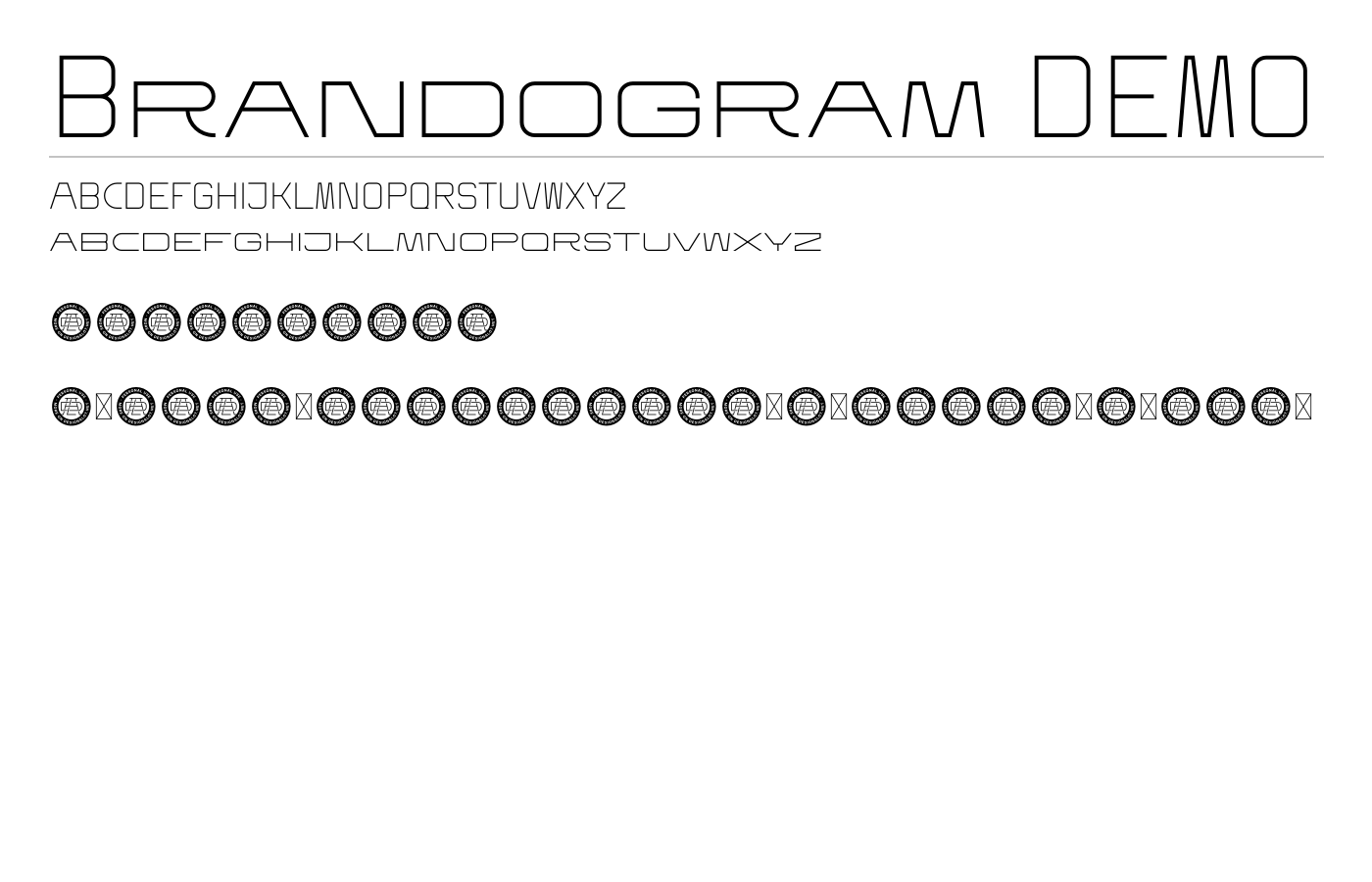
Brandogram DEMO is a sleek, modern sans serif font characterized by its thin, geometric letterforms and consistent stroke weight, giving it a clean and minimalist appearance. Its narrow width and tall x-height create a futuristic and technical vibe, ideal for contemporary branding, tech logos, and editorial headlines. This font works well where a sophisticated, innovative, and stylish tone is desired, especially in digital and print design contexts.
Brandogram DEMO Font
About Brandogram DEMO Font
| Font family | Brandogram DEMO Font |
| Designer | Bogdan Cașotă |